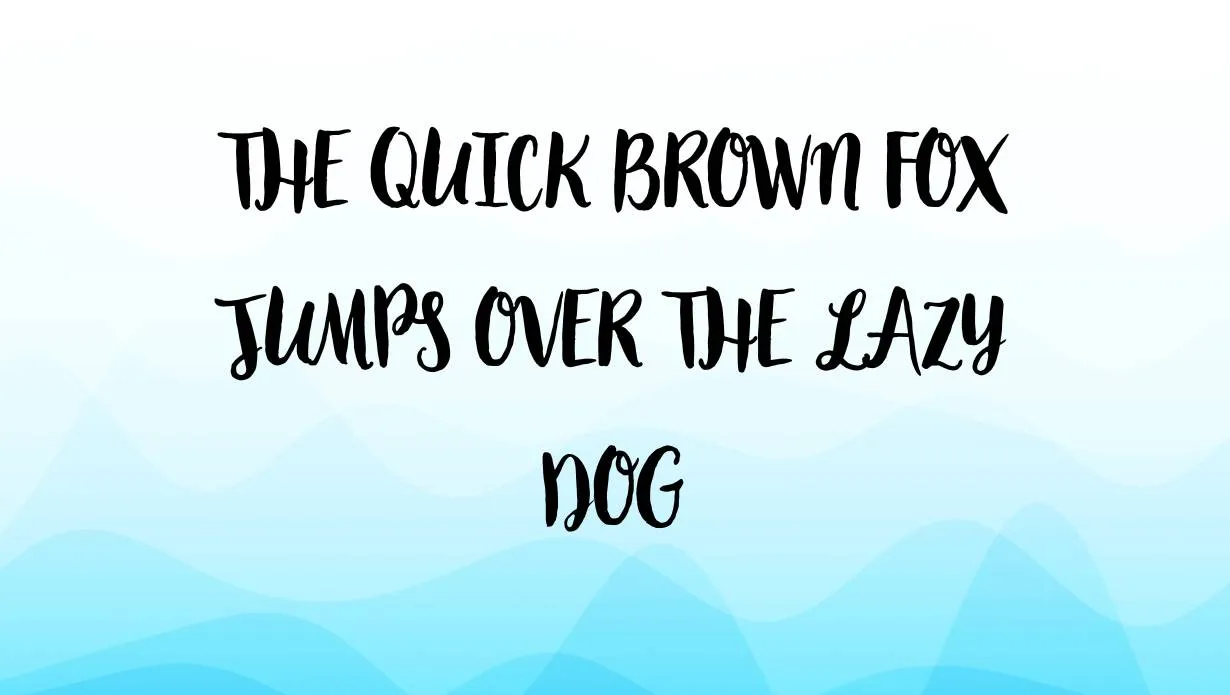
Garden Grown Font exudes a natural and organic charm. It’s perfect for eco-friendly and gardening-related projects, such as plant nursery signage, organic food labels, or botanical event invitations.
Garden Grown Font Family
| Name | Garden Grown Font |
| Designer | Garden Grown Fonts |
Garden Grown Font brings a sense of freshness and environmental consciousness to your designs.